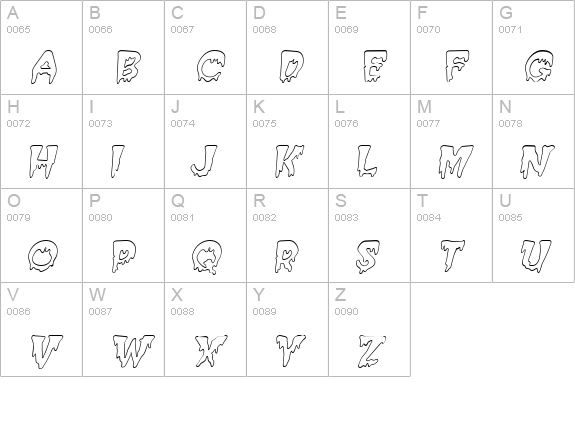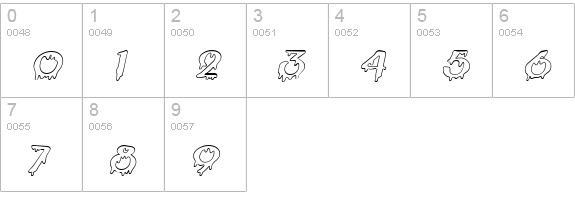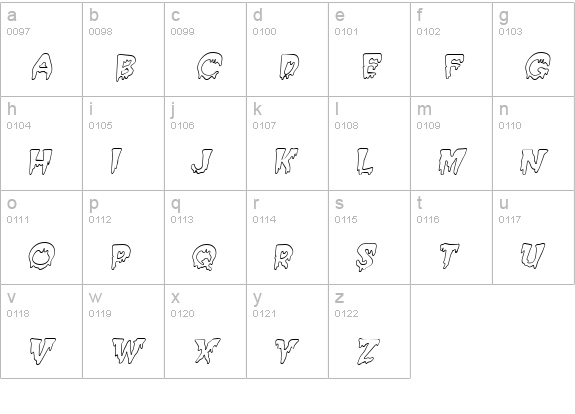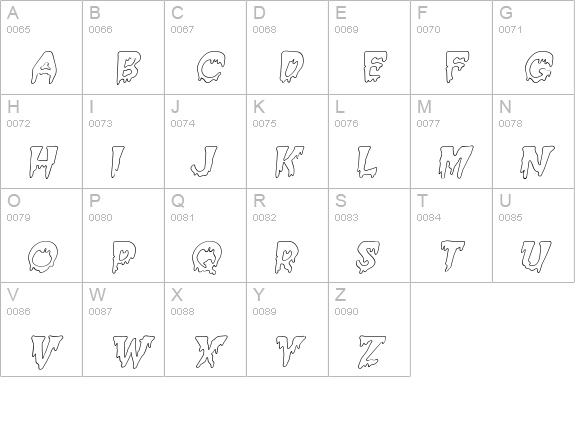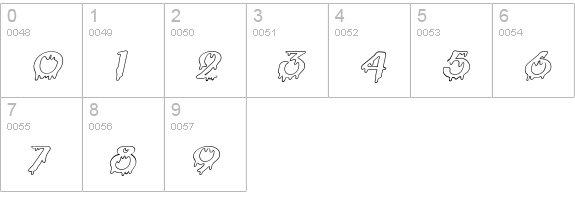
Creepy Hollow Italic is a distinctive, italic variant in the Creepy typeface family \xE2\x80\x94 well suited to design and typography projects.
Creepy Hollow Italic font is a hauntingly beautiful typeface that exudes an eerie charm and an air of mystery. Its twisted letterforms and spooky curves create a chilling atmosphere, perfect for Halloween-themed designs, horror movie posters, or anything that requires a touch of macabre elegance. This font is freely available to download at FontsMarket.com, where you can unleash your creativity and bring your dark visions to life with this unique and captivating typeface. Whether you're a graphic designer looking to add a sinister edge to your projects or a horror enthusiast wanting to enhance your spooky creations, Creepy Hollow Italic font is the perfect choice. Embrace the darkness and let this font guide you into the shadowy depths of your imagination.